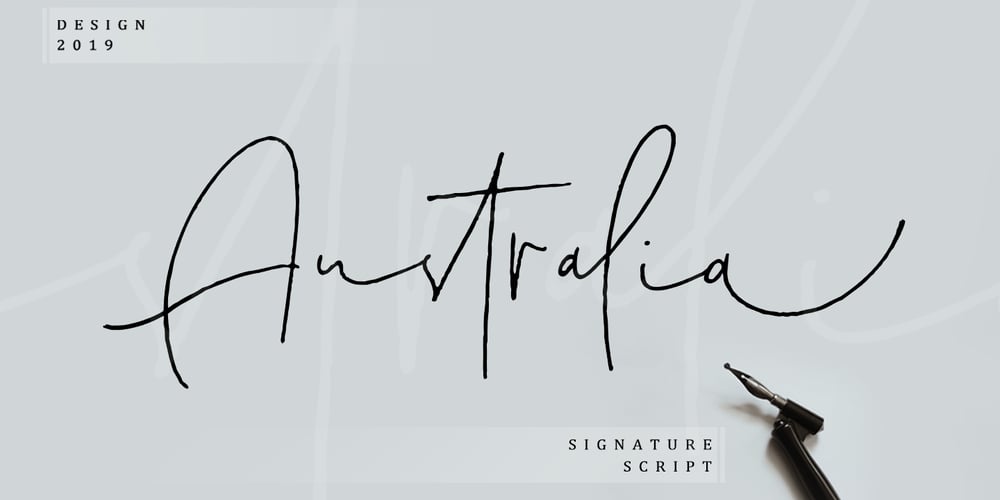
Australia Script Font Family was designed by Mauli Zari and published by Dhan Studio. Australia Script contains 1 styles and family package options. Australia Script is an elegant style handwritten font with a slightly rough scratch, which has a signature style, this font is intentionally made with ligatures and unique alternatives to your various personal designs. Perfect for invitations, greeting cards, news, branding, logos, business cards, posters, product packaging, blog posters, etc. How to access all alternative characters, using Windows Character Map with Photoshop: https://www.youtube.com/watch?v=Go9vacoYmBw How to access all alternative characters using Adobe Illustrator: https://www.youtube.com/watch?v=XzwjMkbB-wQ Australia Script is coded with PUA Unicode, which allows full access to all the extra characters without having special designing software. Mac users can use Font Book , and Windows users can use Character Map to view and copy any of the extra characters to paste into your favourite text editor/app.